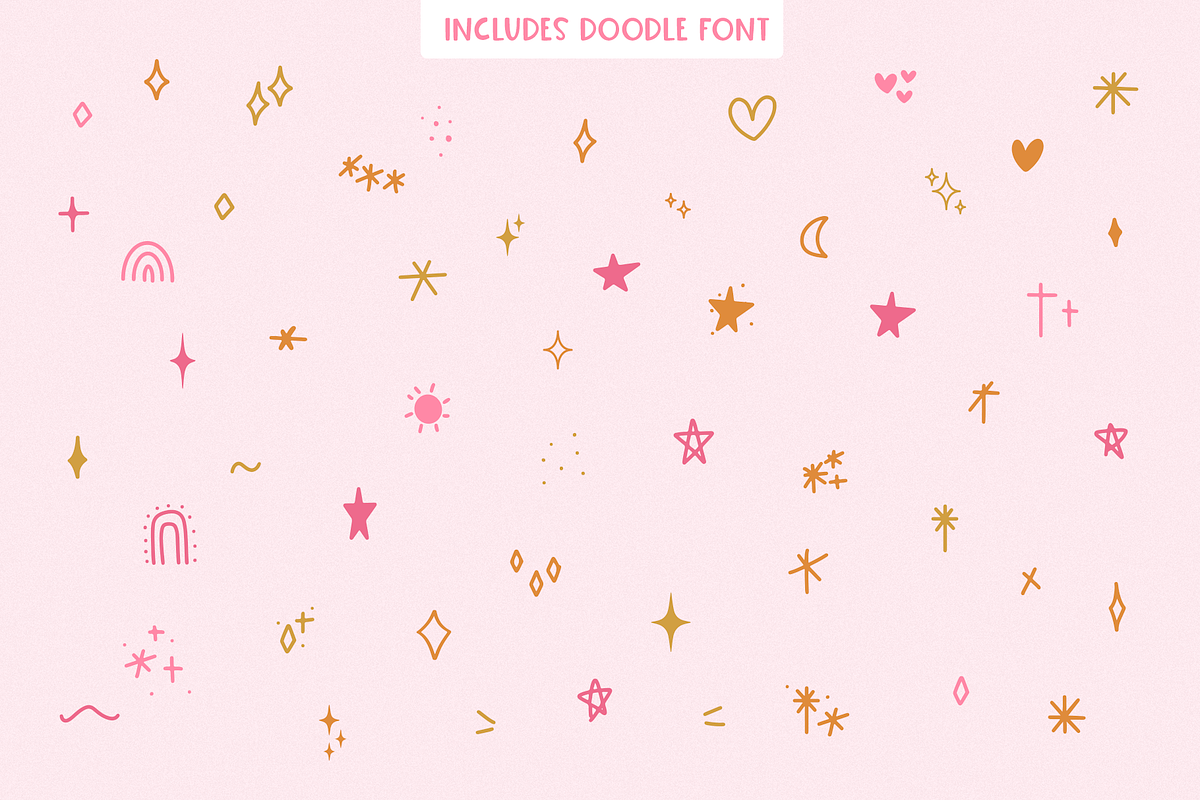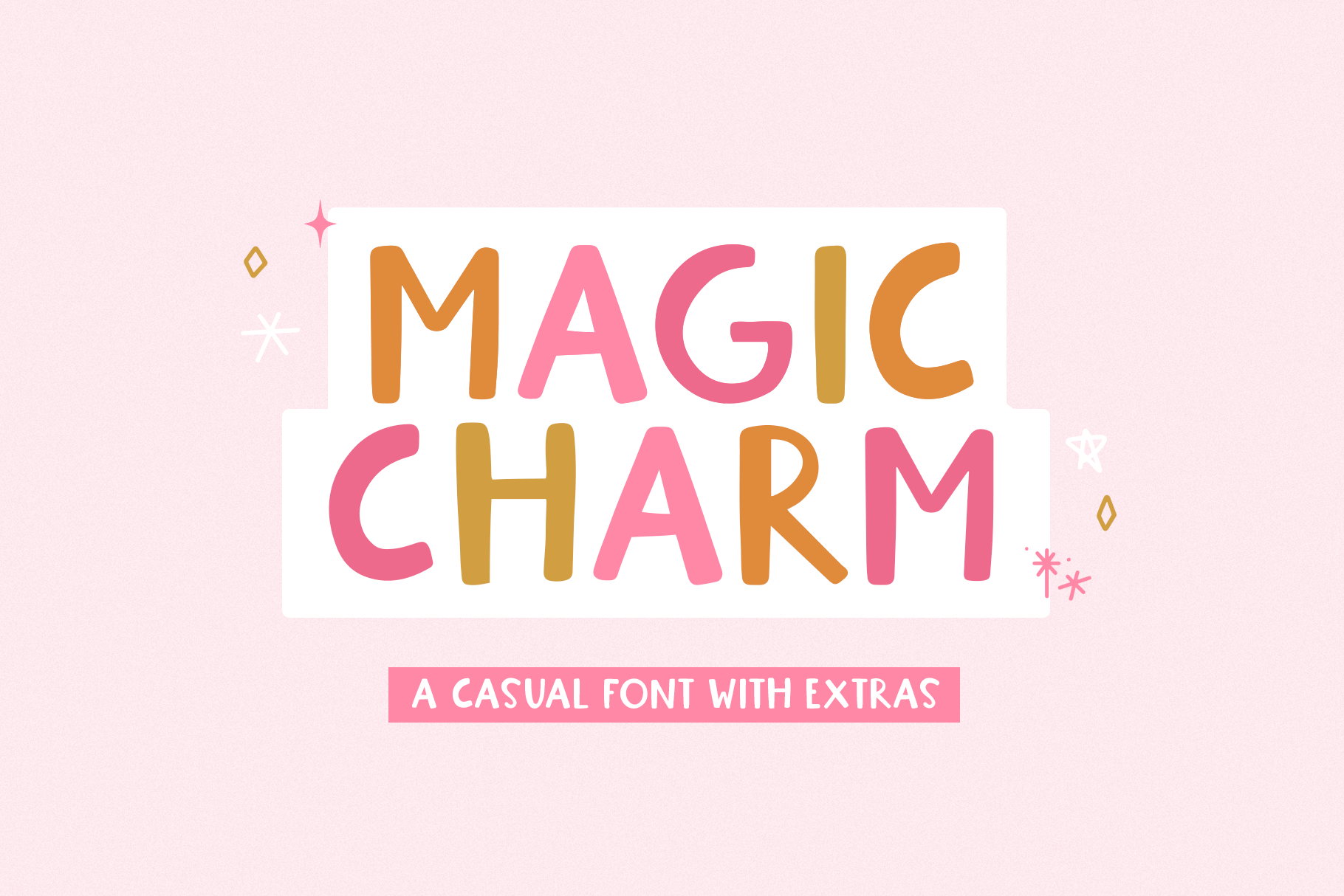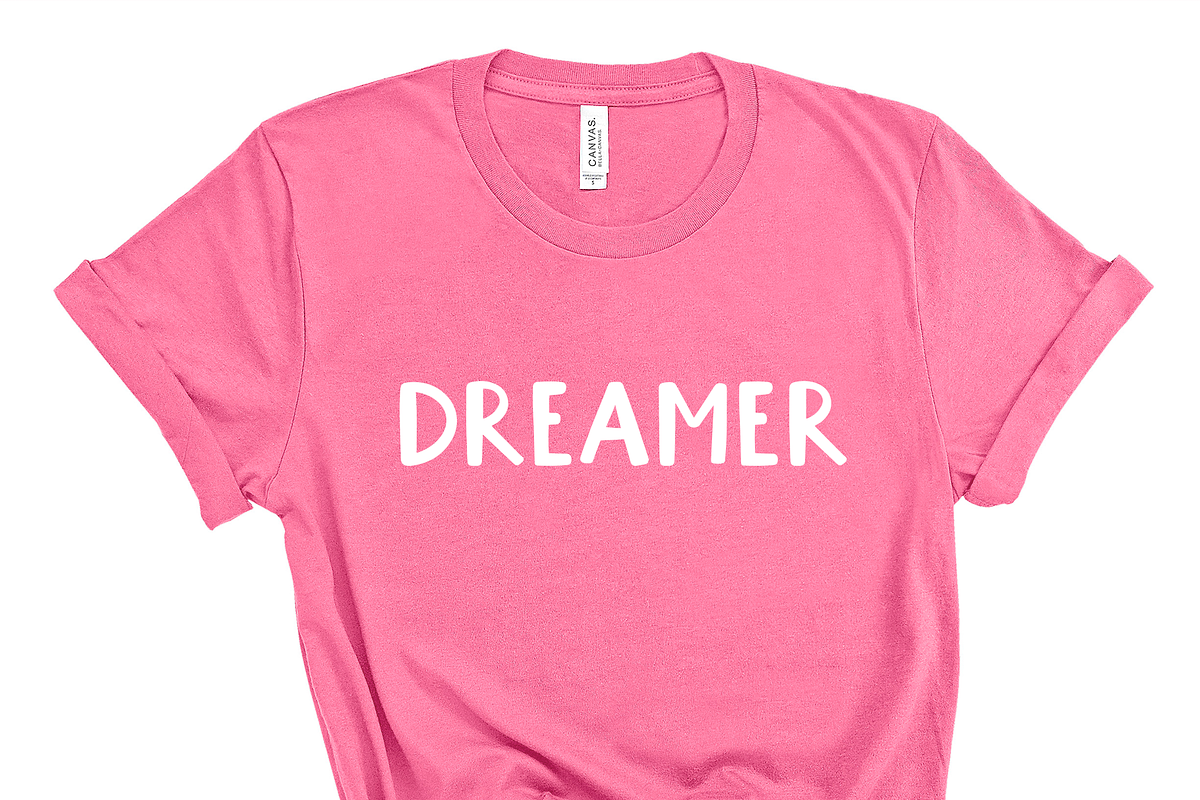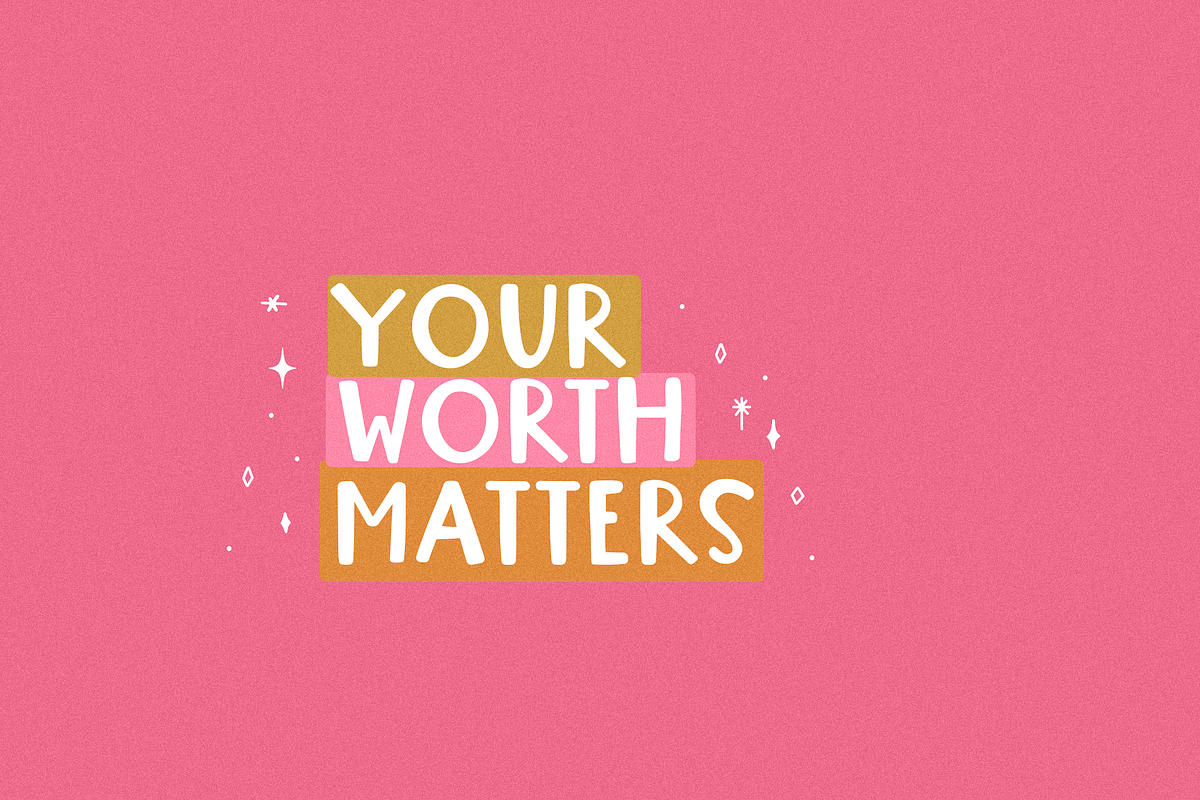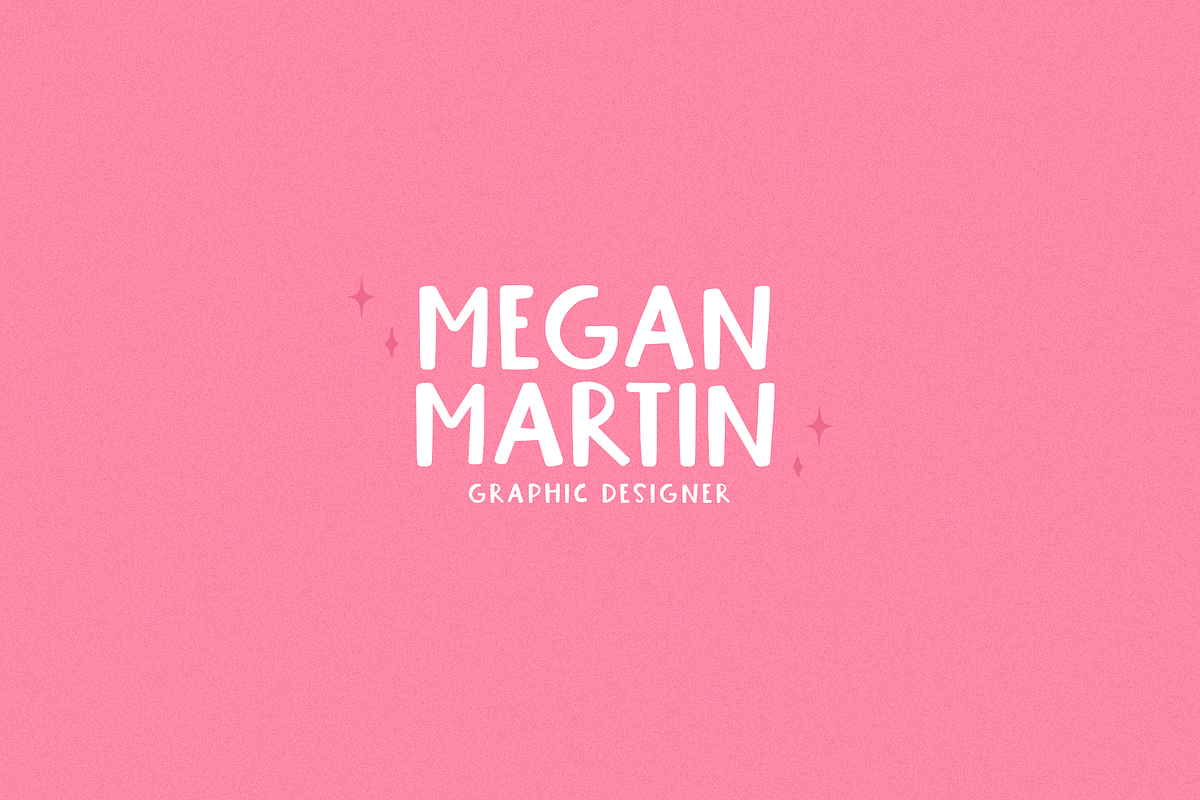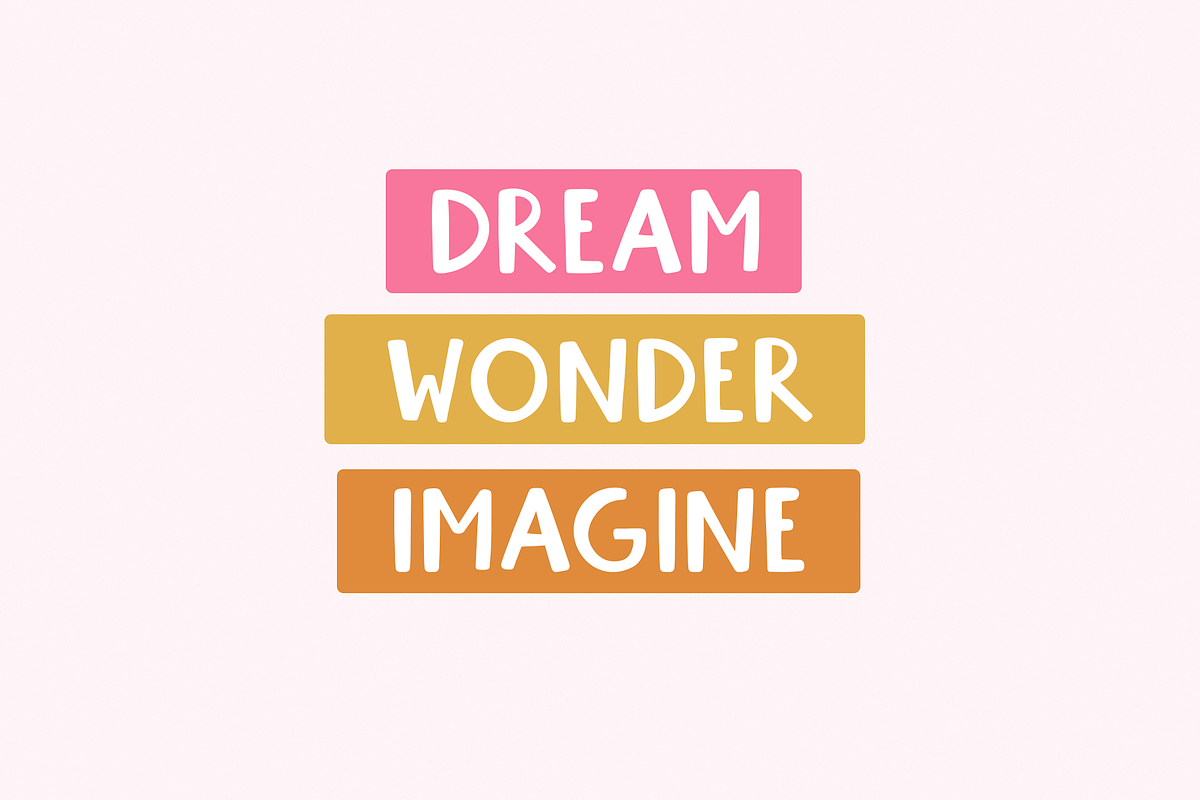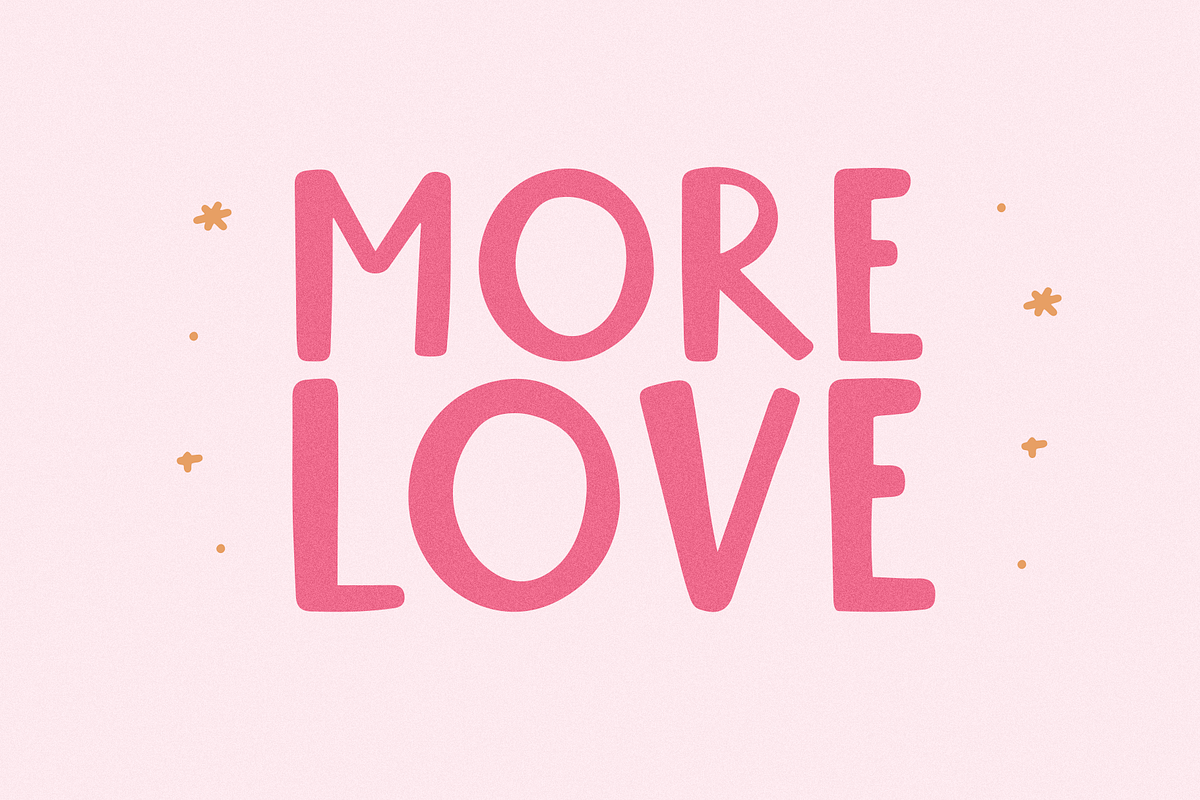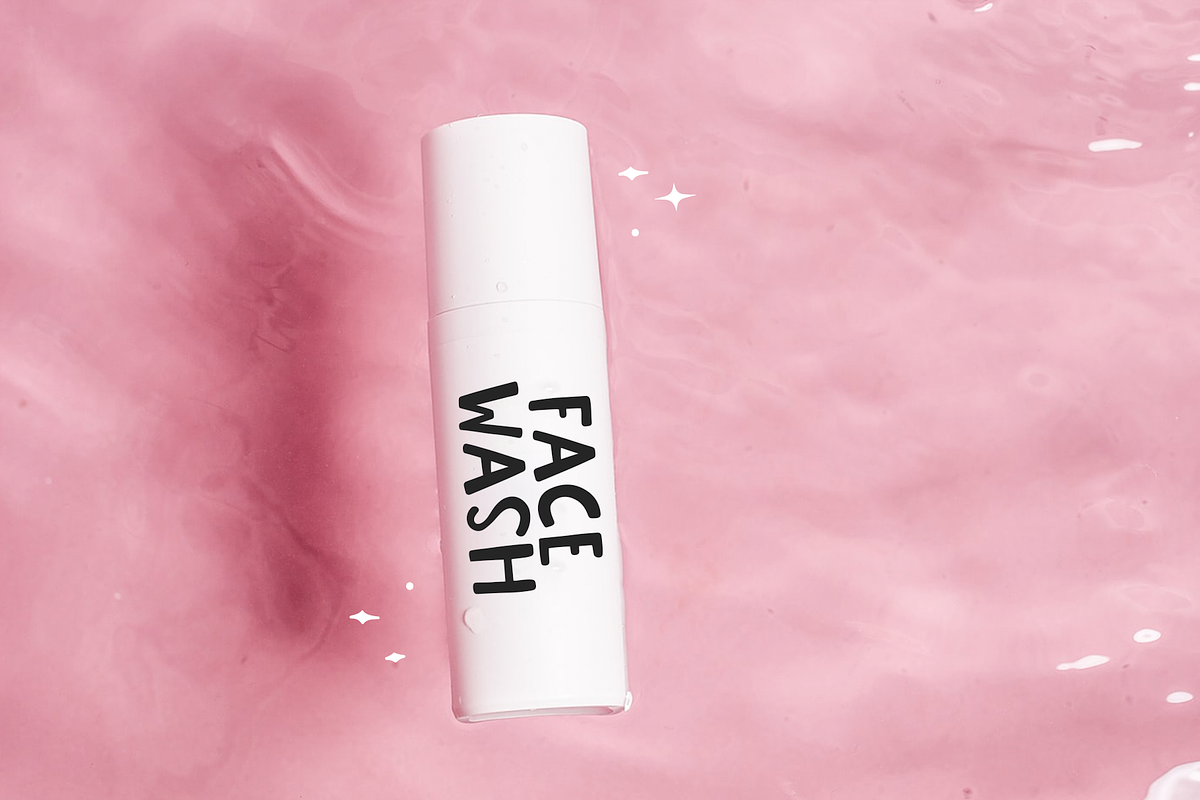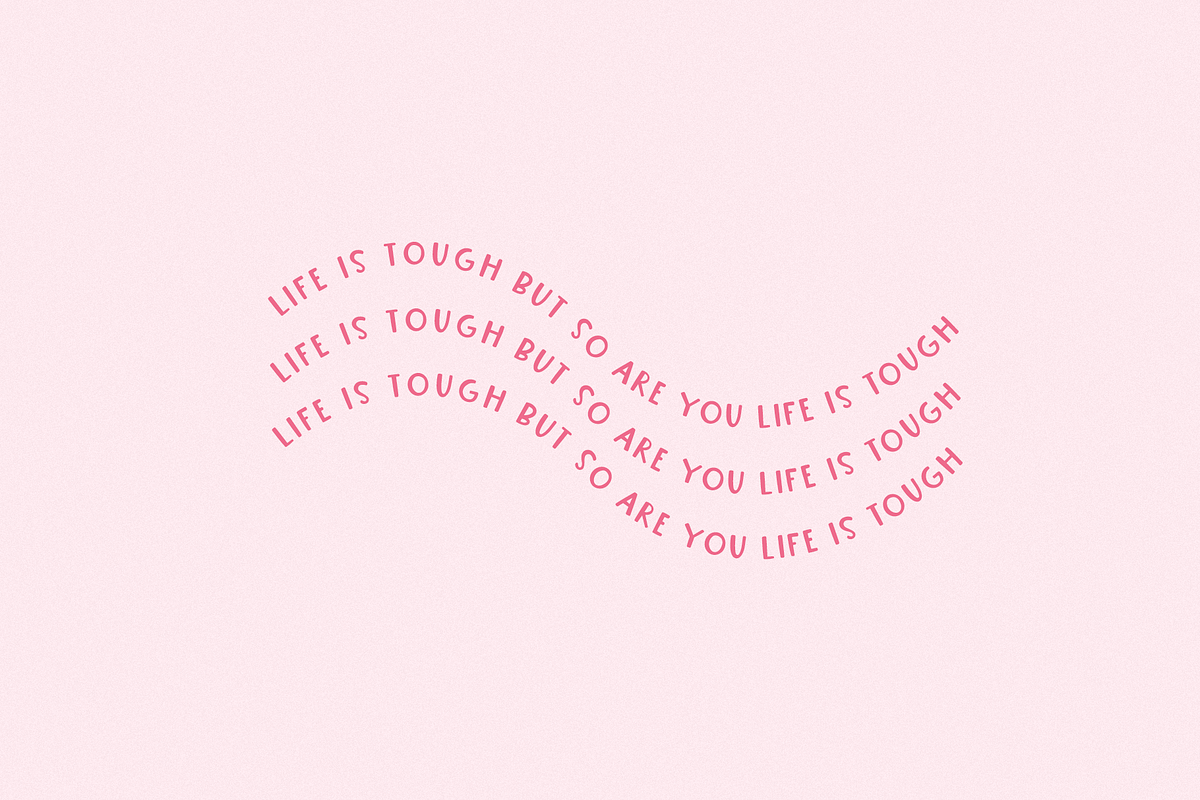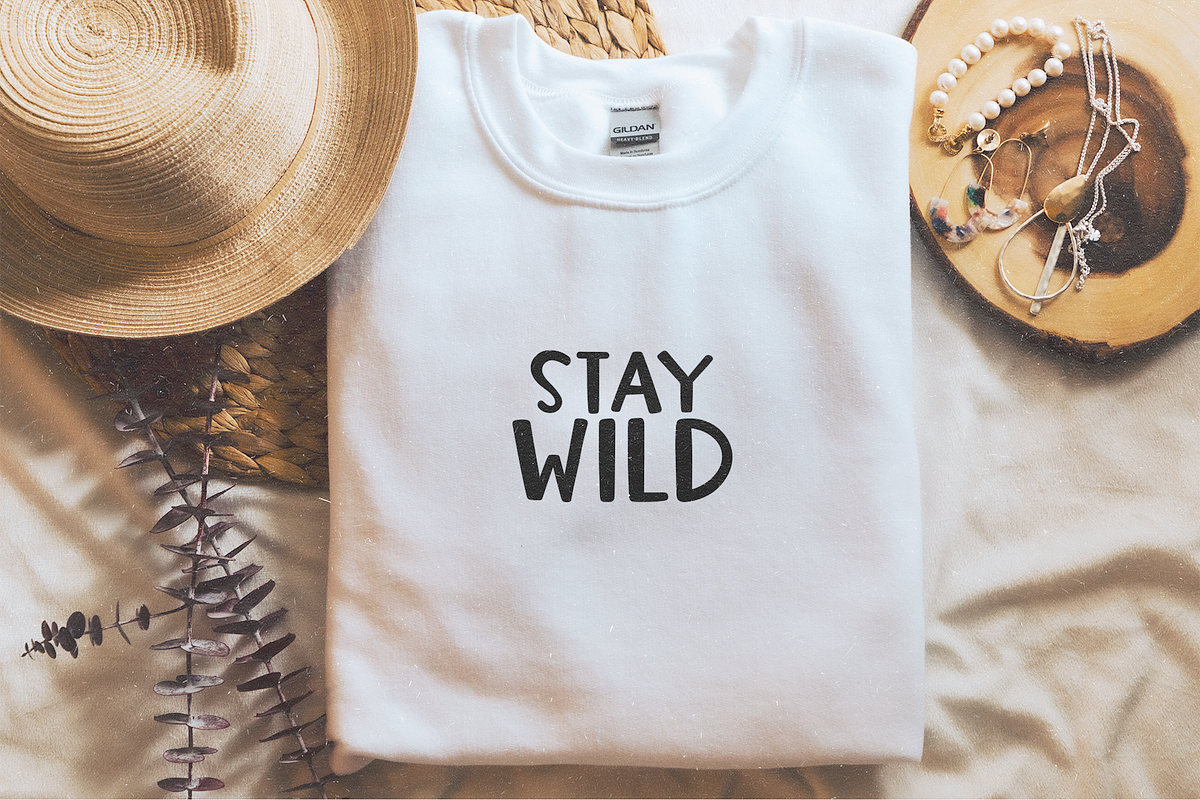
Magic Charm | Font with Extras
Magic Charm is a youthful handwritten font. Includes bonus Doodle Font - with 52 sparkly elements!
This font is perfect for social media, instagram, craft projects, svg designs, branding and more!